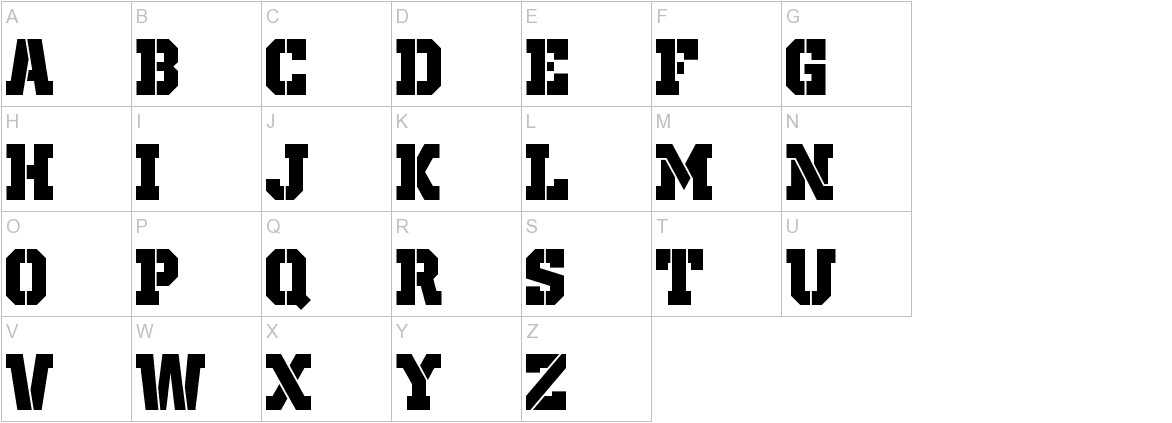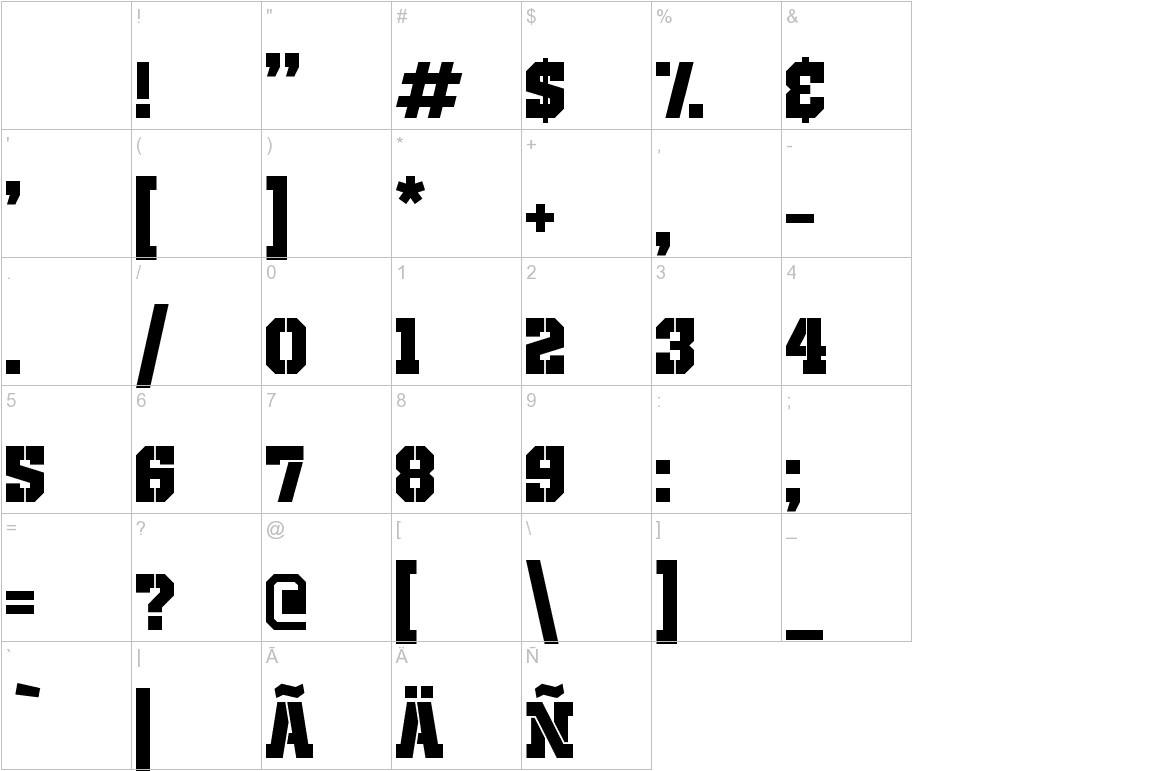
Old School United Stencil
This font is the "stencil" version of my font Old School United: http://www.dafont.com/old-school-united.font
It has more than 350 letters, so you will be able to use it in French, Spanish, Swedish, Icelandic, Polish, Lithuanian, Latvian, Romanian, Serbian, Russian, and so much more!